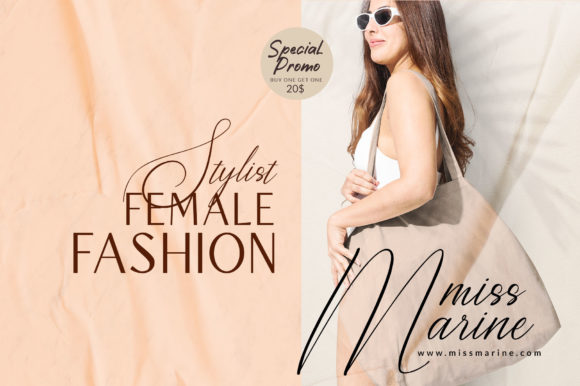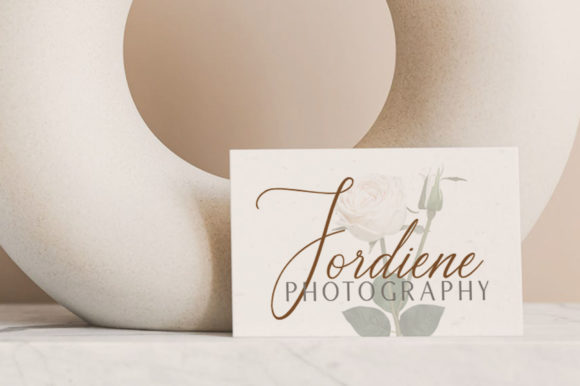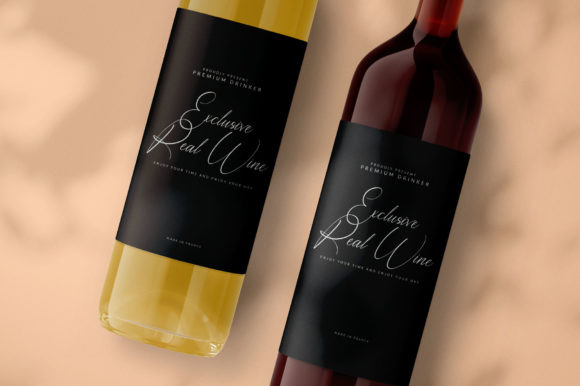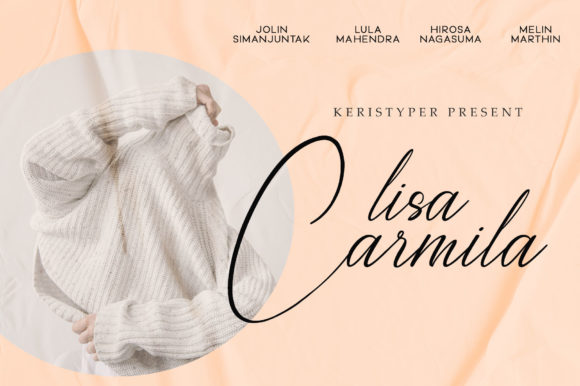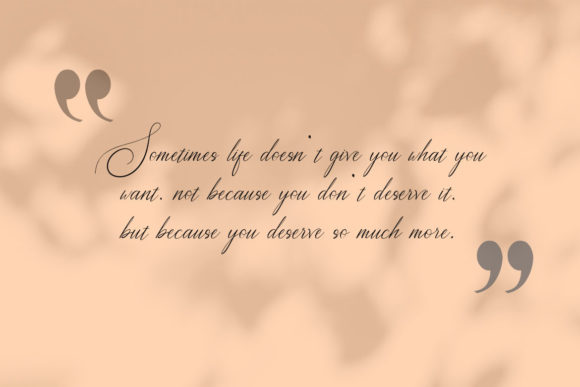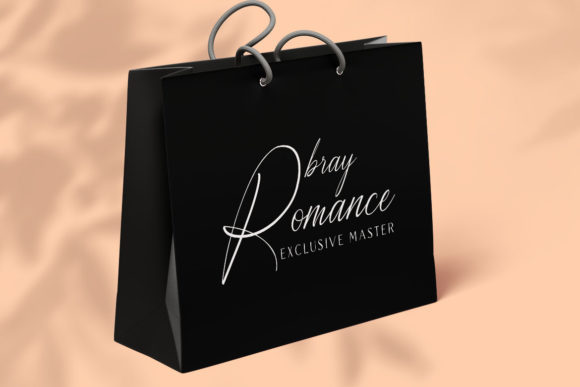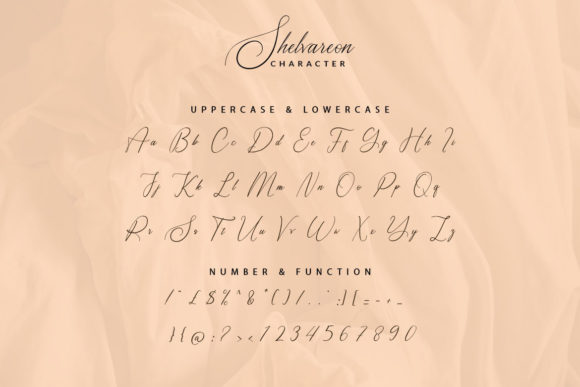
Shelvareon Font
About Shelvareon Font
Shelvareon is a well balanced, delicate and thin script font. Featuring characters that dance along the baseline, this font will add a luxury spark to any design project that you wish to create!